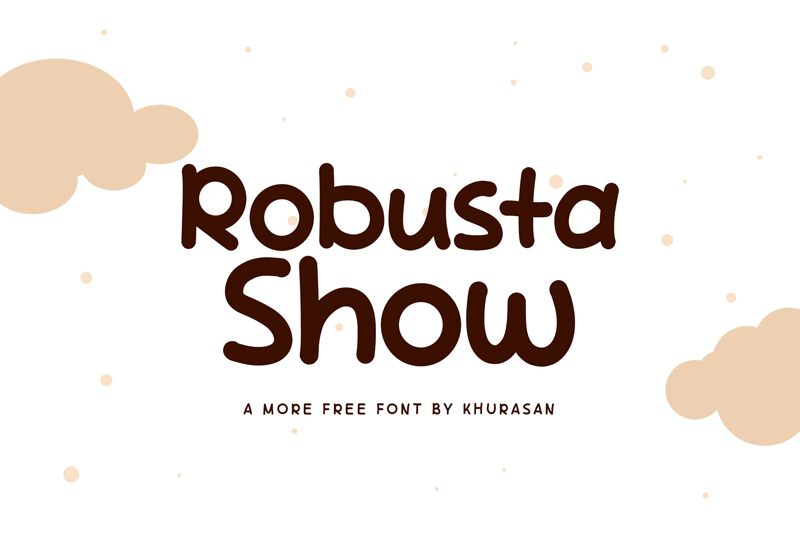
Robusta Show, crafted by the talented Khurasan, offers a burst of playful energy to any creative project. This semi-bold, semi-expanded display font embodies a cartoon style that's both modern and fancy. Its charming quirks make it an ideal choice for posters that pop, logos that linger in memory, magazine headlines that command attention, and book covers that beg to be picked up.
Imagine Robusta Show elevating your banners to works of art or giving your designs the edge they need to thrive in a competitive visual market. The versatility of this font is boundless-whether you're aiming for light-hearted fun or bold statement-making. As you harness the unique spirit of Robusta Show, watch as your creative ideas transform into eye-catching masterpieces with just the right touch of whimsy and distinction.